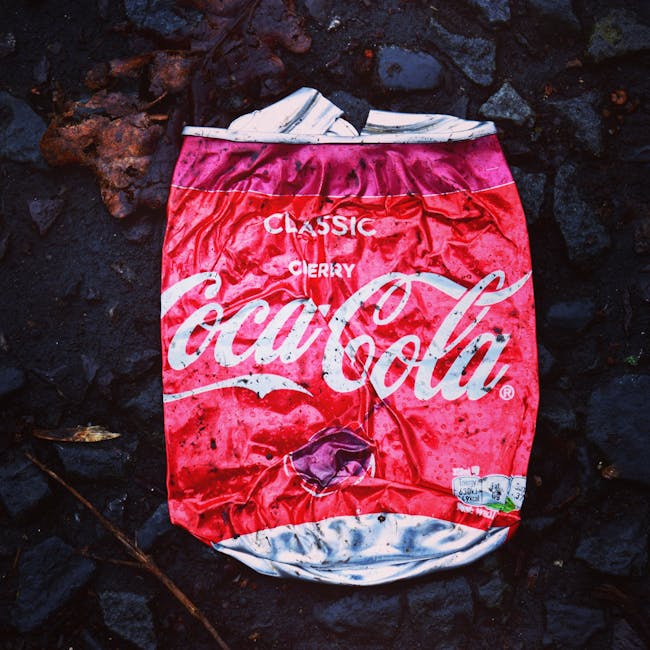
What is Coca Cola Font Generator
What is Coca Cola Font Generator?
The Coca Cola font generator is becoming increasingly popular among designers and branding enthusiasts. Like a magician pulling a rabbit out of a hat, this tool allows users to recreate the iconic style that has defined one of the world’s most recognizable brands. With the Coca Cola font generator, anyone can add a touch of classic charm to their projects, making it a go-to tool for those aiming to emulate the brand’s timeless elegance.
Understanding the Coca Cola Font
The Coca Cola font is more than just a typeface; it’s a visual symbol that embodies the brand’s history and global impact. Its distinctive curves and flowing script tell a story of tradition and success.
The Origins of the Coca Cola Font
The Coca Cola font has roots deeply embedded in history, tracing back to the late 19th century. Originally, the font was developed using Spencerian script, a popular writing style in the United States during the 1850s Coca-Cola Logo History. This script was chosen for its elegance and readability. As the brand evolved, so did its font, maintaining its core characteristics while adapting to modern design trends.
The Importance of Typography in Branding
Typography plays a crucial role in branding, acting as the voice of a brand’s visual identity. The right font choice can inspire trust, evoke emotions, and establish recognition. Just like Coca Cola’s font does for its brand, a well-chosen typeface can communicate the essence of a brand and leave a lasting impression. It’s about finding that perfect balance where art meets communication.
What is a Coca Cola Font Generator?
A Coca Cola font generator is a digital tool that allows users to replicate the Coca Cola-style typeface for various creative projects. These generators offer the ability to transform regular text into the iconic Coca Cola script, making it accessible for personal and professional use without the need for advanced design skills.
Features of a Coca Cola Font Generator
When looking for a Coca Cola font generator, it’s important to consider features such as ease of use, customization options, and compatibility with different devices. The best tools offer seamless integration with design software and provide a range of styles and effects to enhance the font’s appearance.
Popular Coca Cola Font Generators
Using the Coca Cola Font in Design Projects
The Coca Cola font generator can be a powerful addition to any designer’s toolkit, offering versatility and a touch of nostalgia.
Incorporating the Font into Logos and Branding
When using the Coca Cola font in logos and branding, it’s essential to maintain brand consistency. Think of it as finding the right spice in a culinary masterpiece—it should enhance, not overpower. Pairing the font with complementary colors and design elements can create a cohesive and impactful brand identity.
Creative Uses of the Coca Cola Font
Beyond traditional branding, the Coca Cola font can be used creatively in projects like custom merchandise, event invitations, and digital art. Its classic appeal can breathe new life into any design, much like a vintage record player adding warmth to music.
Coca Cola’s font is a protected trademark, and using it without permission can lead to legal issues. It’s essential to respect the brand’s intellectual property and understand the boundaries of its use Trademarkabilities on Coca-Cola’s Script.
How to Avoid Copyright Violations
To use the Coca Cola font legally, ensure your projects are for personal use, or seek licensing if intended for commercial use. Avoid direct replication of the brand’s logo and instead use the font as inspiration for unique creations. Adhering to these guidelines can prevent potential legal disputes.
The Coca Cola font generator is a remarkable tool for designers and branding enthusiasts looking to capture the essence of a classic and globally recognized brand. By understanding its history, appreciating the importance of typography, and respecting legal boundaries, you can harness the power of the Coca Cola font to enhance your creative projects. Whether you’re designing a logo or crafting a piece of digital art, this generator offers a window into the timeless charm of Coca Cola’s iconic style.